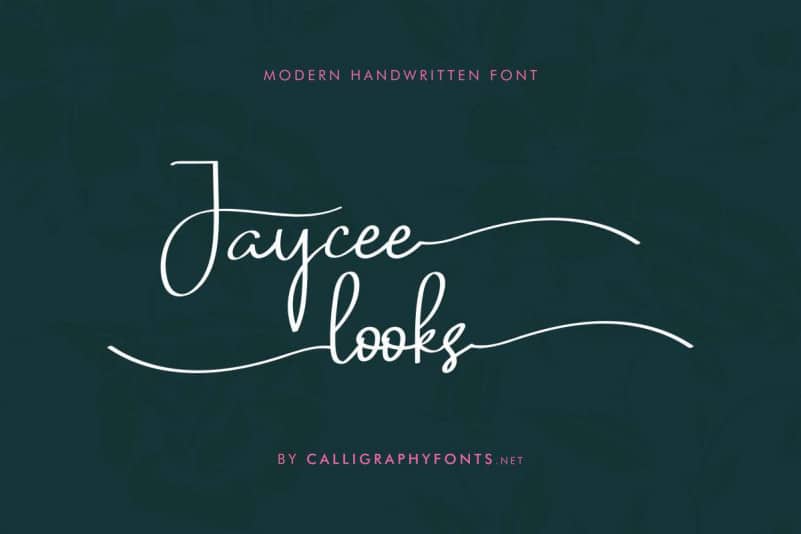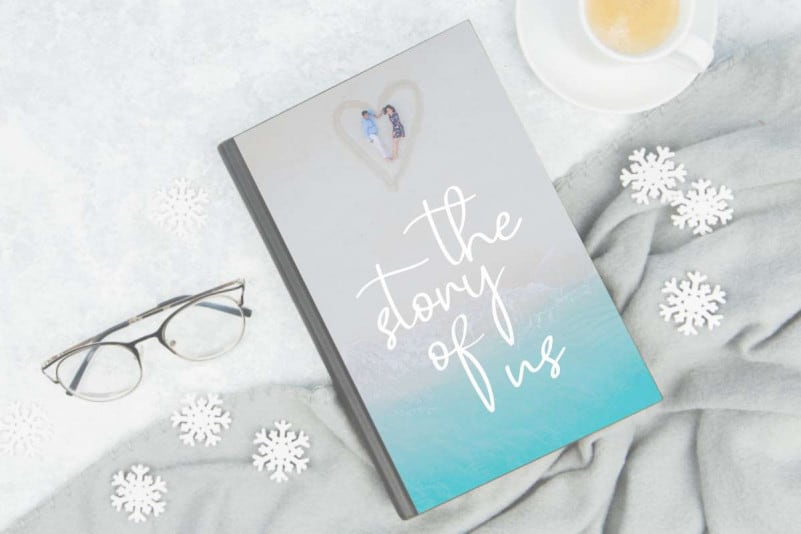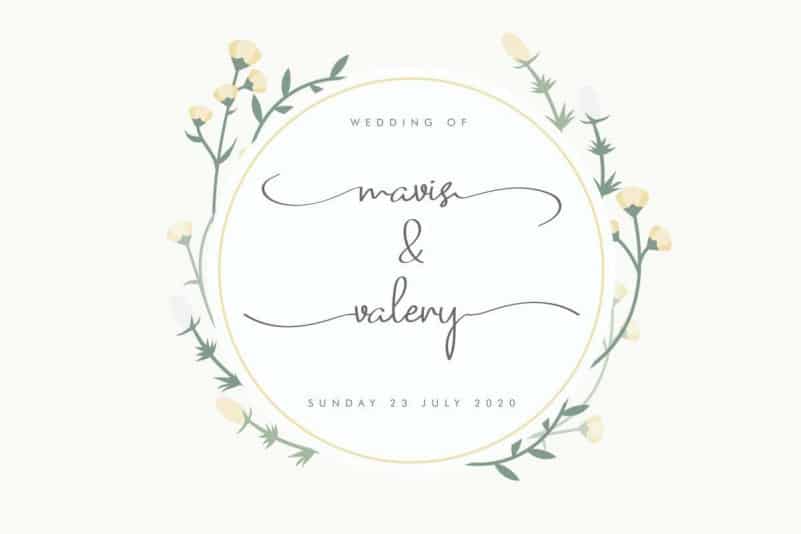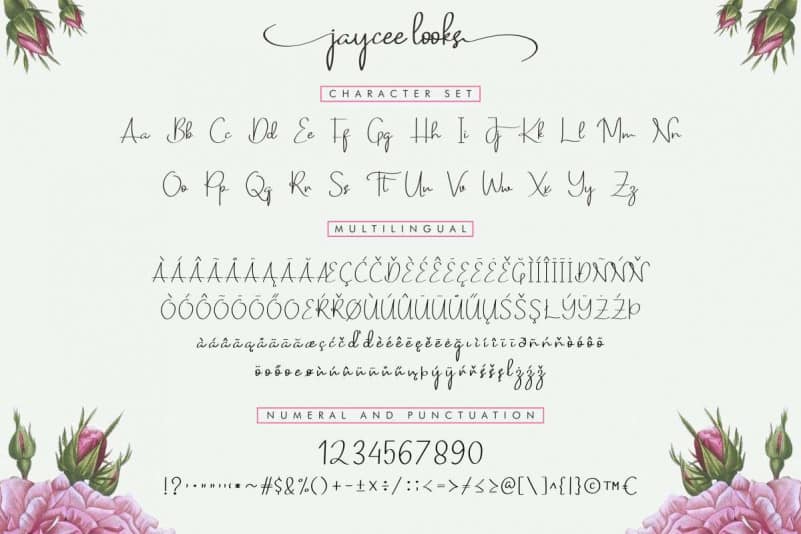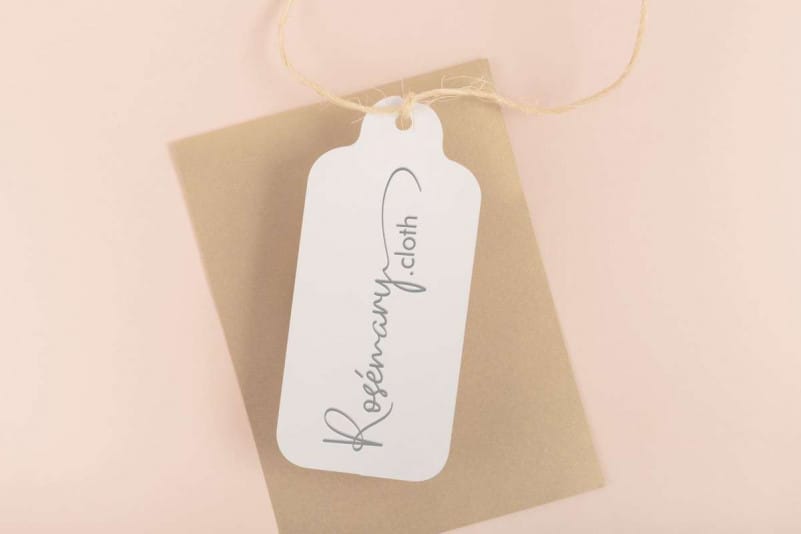
Jaycee Looks Script Font
Jaycee Looks Script Font is a Handwriting script font. The style of this font are elegant, luxury, glamour and classic handwritten pen.